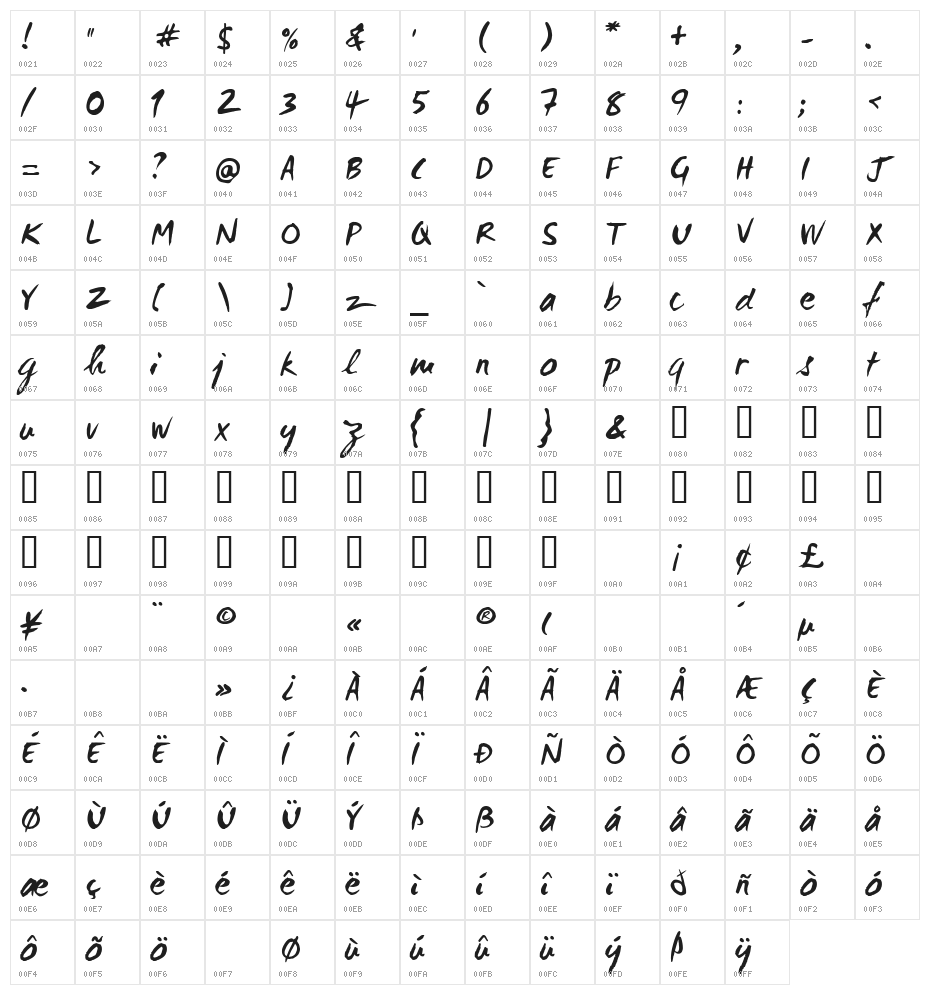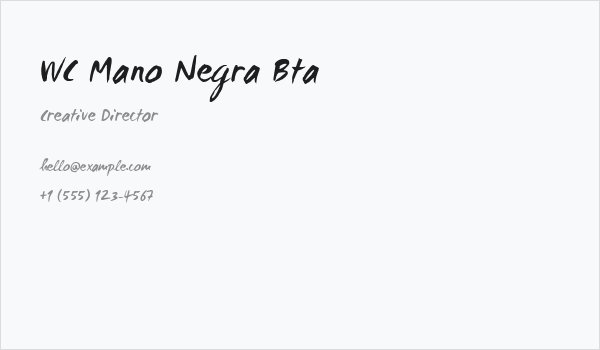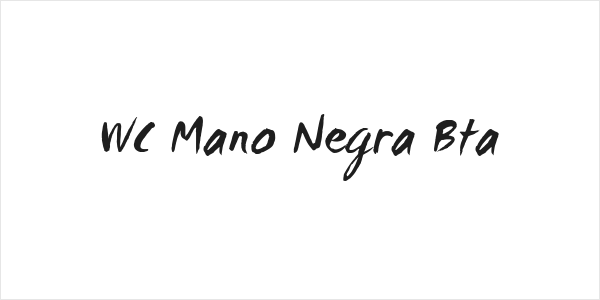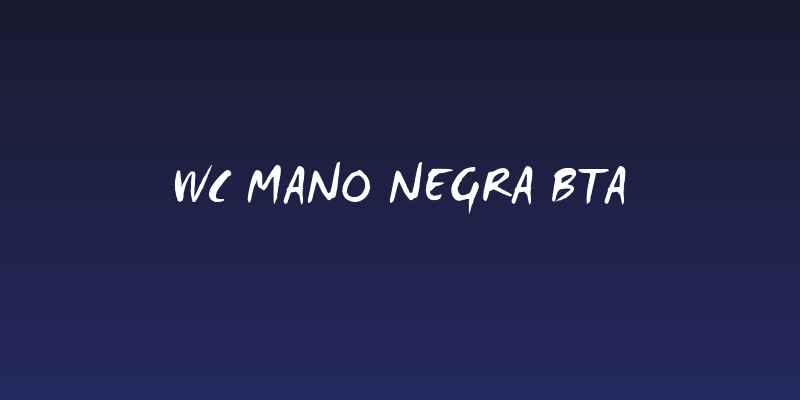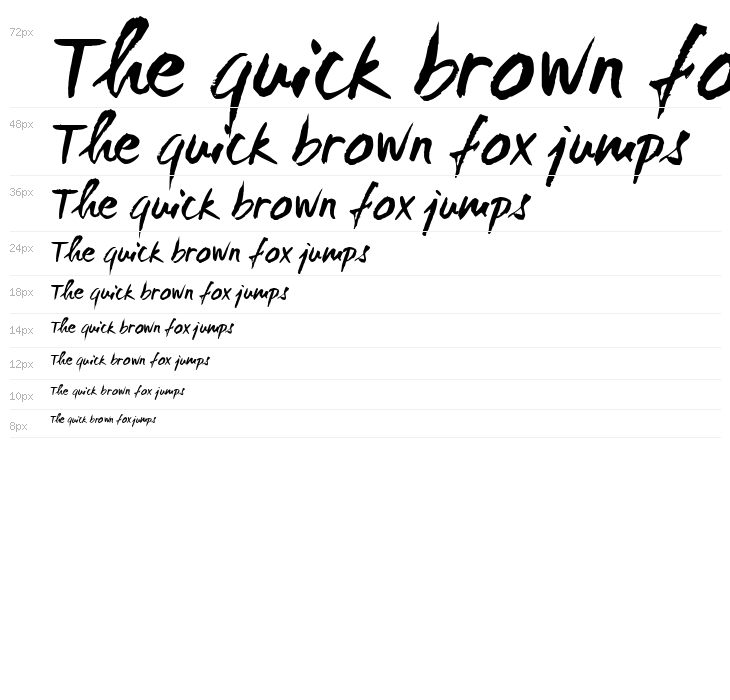
WC Mano Negra Bta Font
WC Mano Negra Bta Description
This font exudes a bold and dynamic handwritten style, characterized by its energetic and slightly chaotic strokes. The letters are crafted with a brush-like texture, giving them a raw and expressive appearance. The uppercase and lowercase letters maintain a consistent flow, while the numbers and special characters complement the overall aesthetic. The font's irregularities and variations in stroke width add to its charm, making it ideal for projects that require a personal and artistic touch. Its unique style can capture attention and convey a sense of creativity and individuality.
| Proposed Projects | Ideal for artistic projects, branding, posters, and creative invitations. |